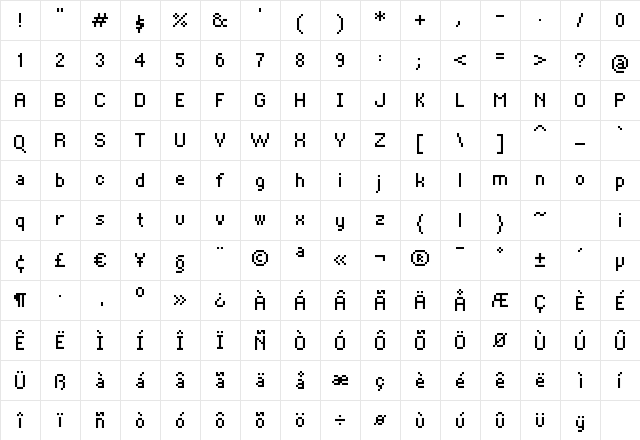
Bit KitRegular Font Preview
Bit KitRegular Regular
Bit KitRegular Font Details
Design Context for Bit KitRegular Typeface
Bit KitRegular takes a measured approach to typography — its balanced proportions and neutral character make it a reliable workhorse for both digital and print work.